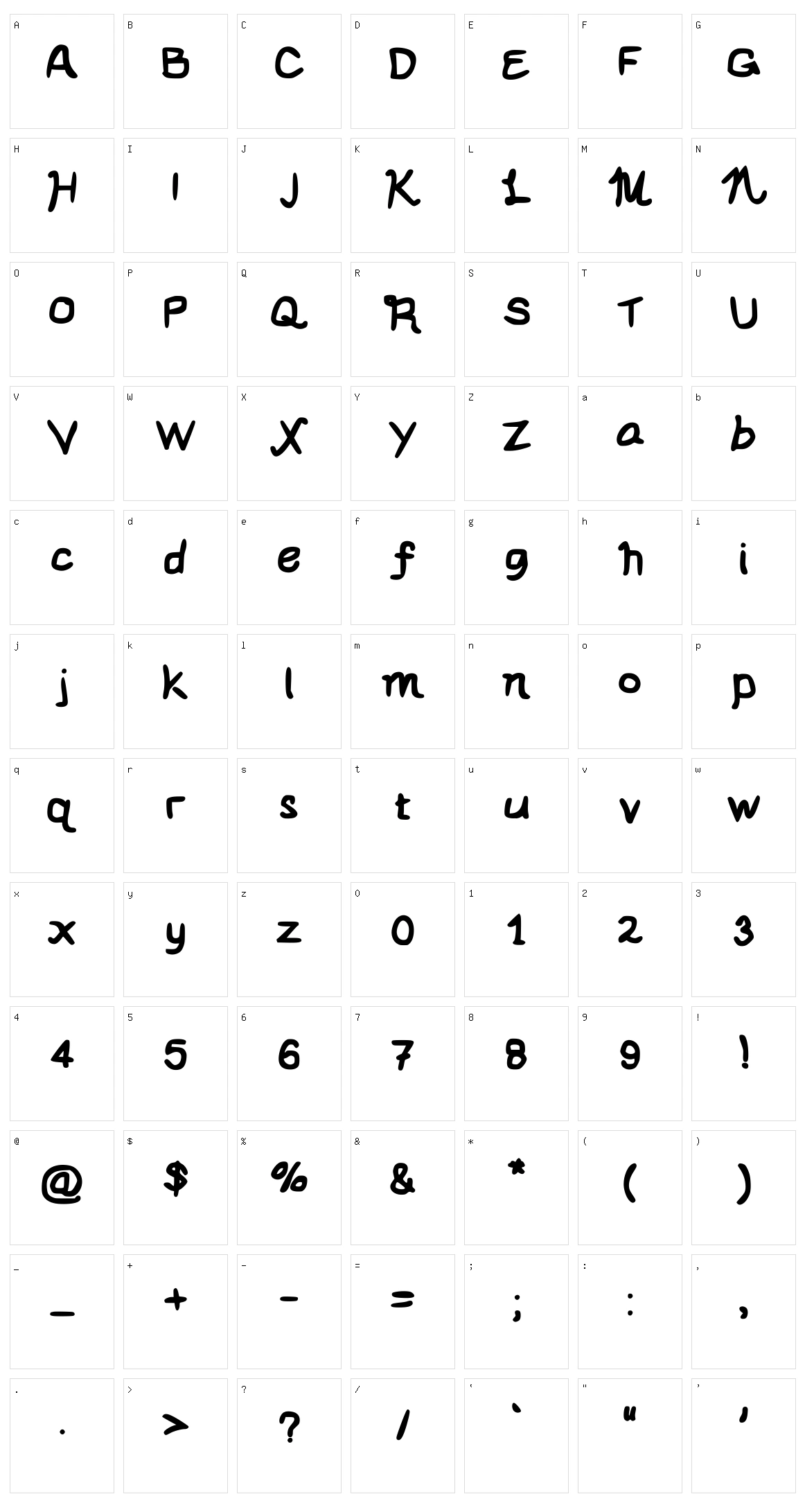
The free font Le Dante's Super Special Font is carefully designed by Cavo, showcasing a thoughtful balance of creativity and usability and falls under the Script font style. When you download the ZIP file, it contains only 11.2 KB of font files, making it lightweight and quick to download. Please review the license details below to understand permitted usage and distribution rights. If license information is not available, we recommend using this font for personal projects only or contacting the author directly for commercial usage permissions.